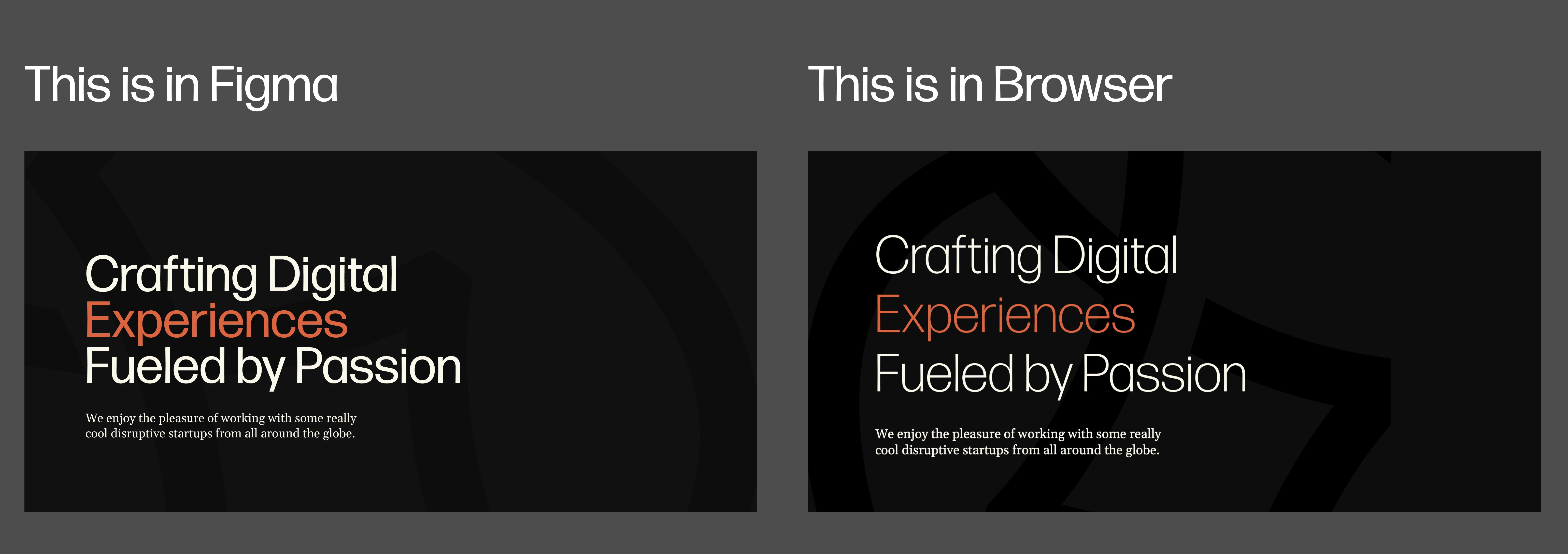
Forma DJR Display's Font weight appears heavier in Figma but on Browser it looks thinner
I am using Forma DJR Display Adobe font. Designs on Figma file looks perfect but when I developed the website on webflow the same font weight looks thiner in Brower.
Is anyone else facing the same issue and any possible solution to this?
Please check the attachement for the difference.